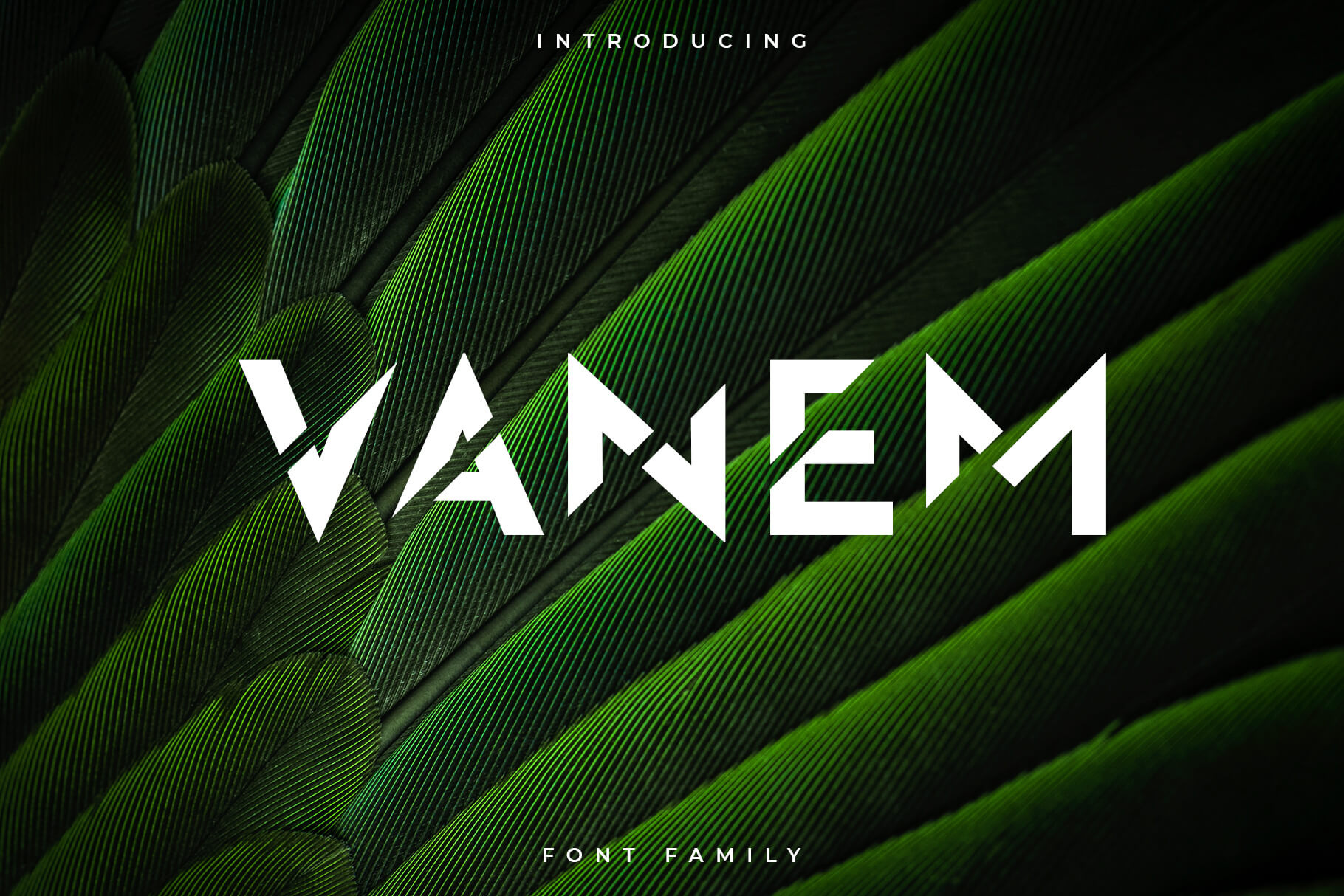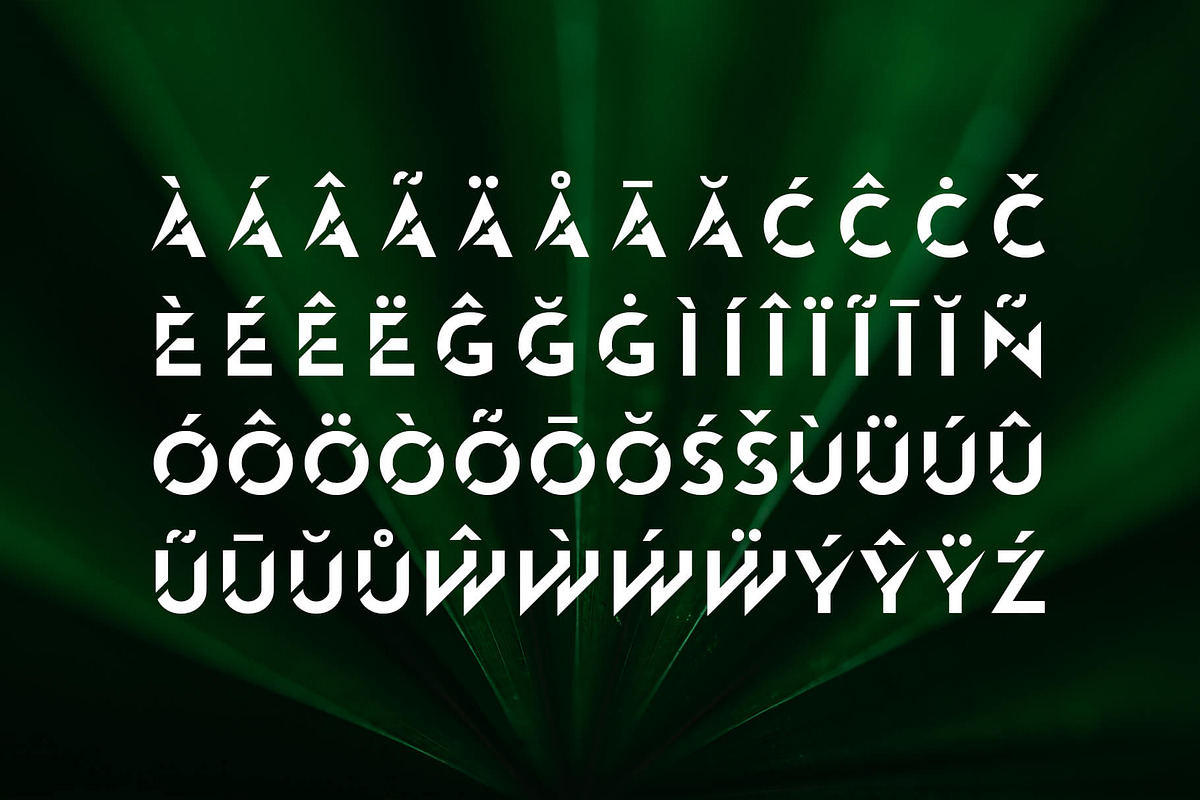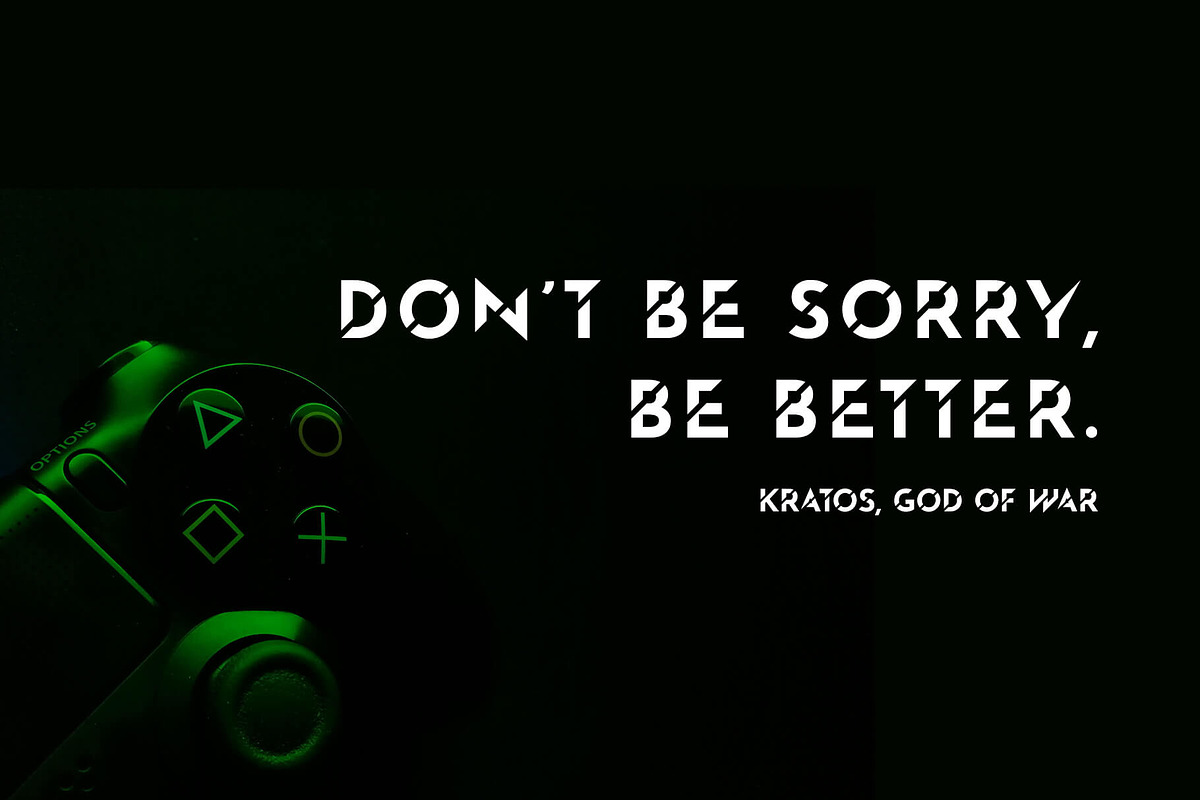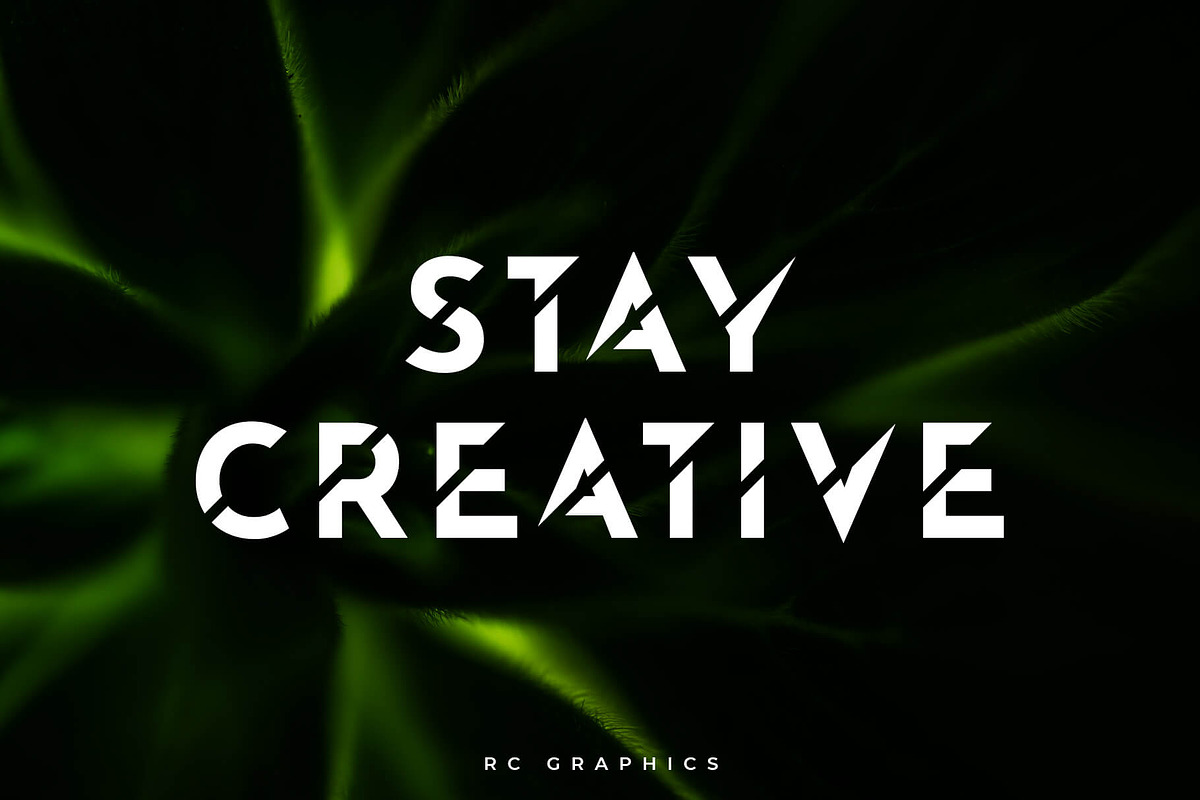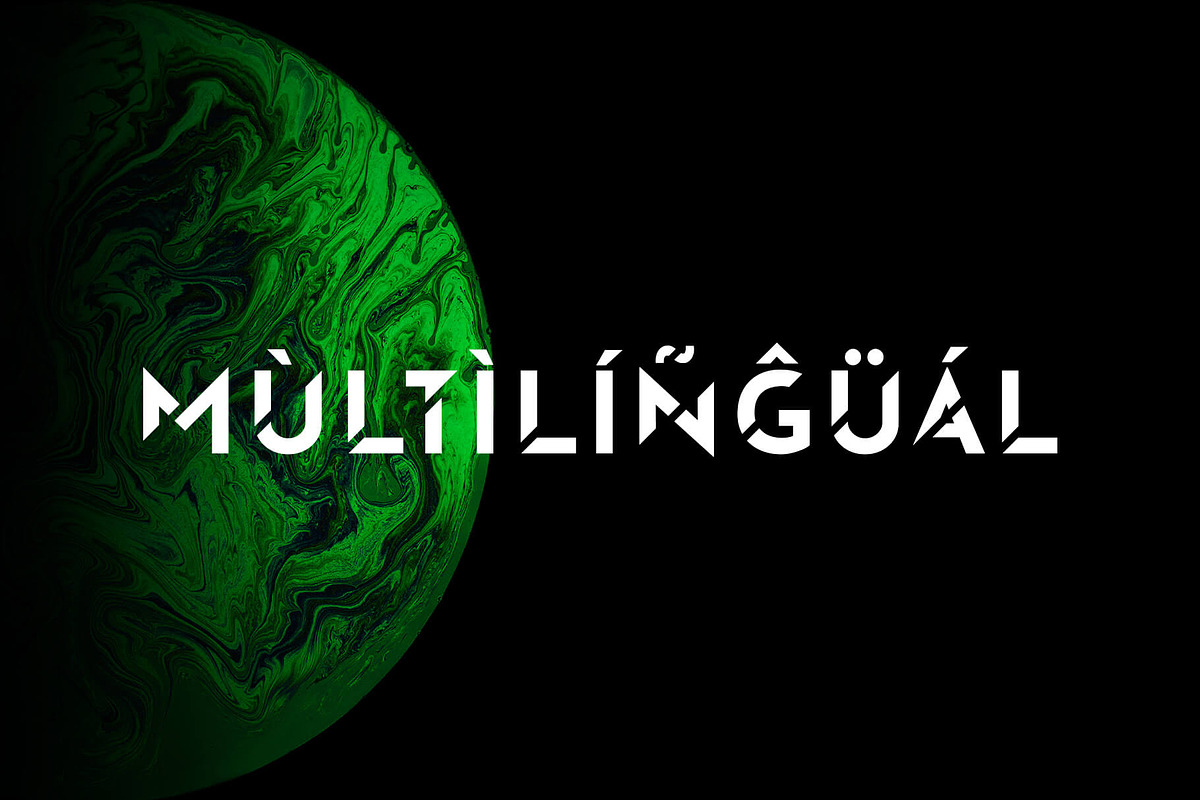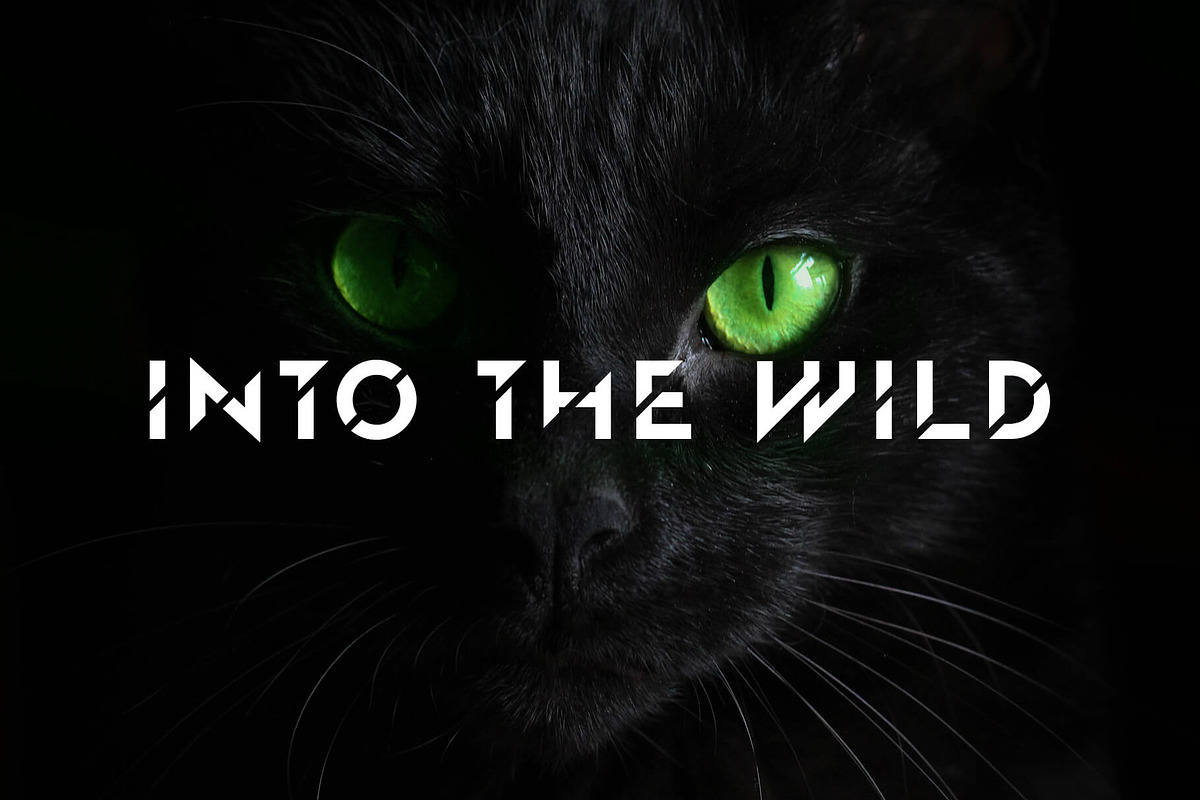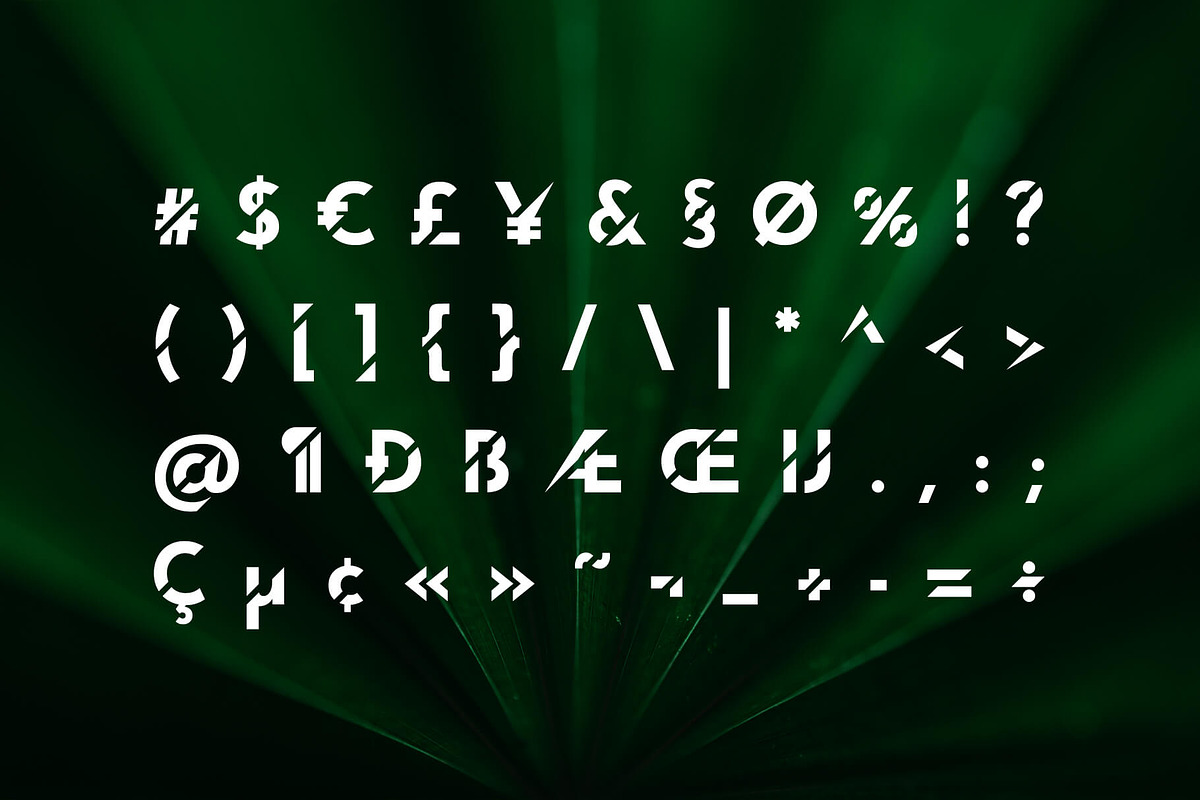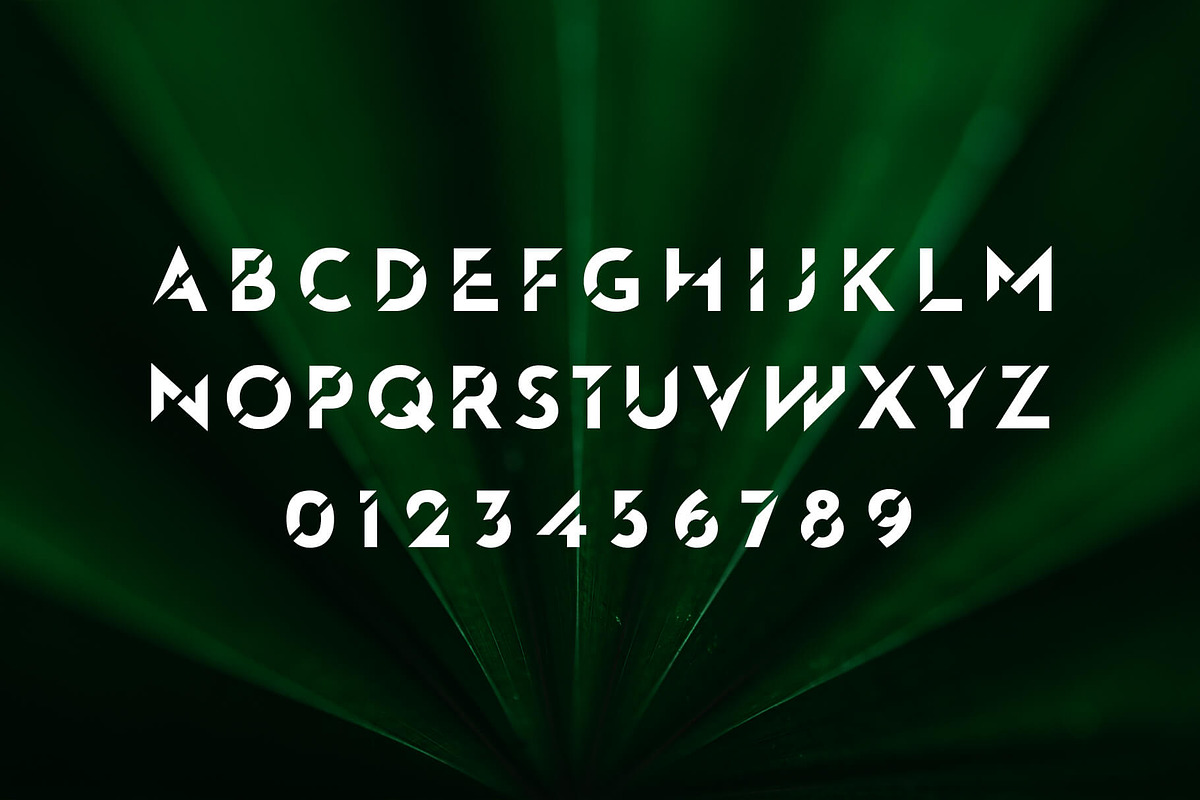
Vanem Font Family – Display Font
Vanem is a wild display font with diagonal cuts. This font Perfectly suites for variety display purposes, including logotypes, badges and labels, headlines and banners, posters, prints and much more.
- Uppercase letters
- Multilingual (Foreign language characters)